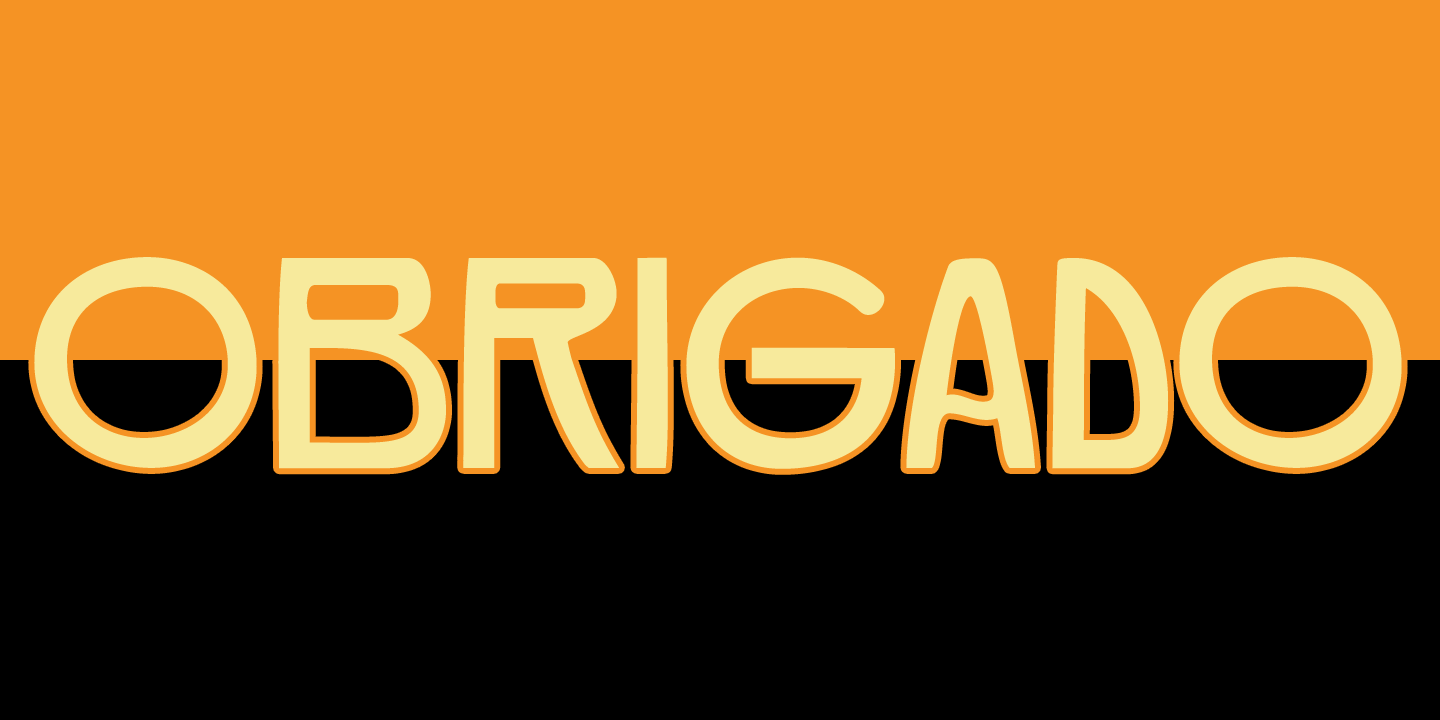
The Obrigado Font excels in various design applications including Brazilian cultural branding, Portuguese language educational materials, Latin American restaurant communications, Brazilian tourism marketing, Portuguese heritage center identities, Brazilian music festival promotions, Portuguese bookstore signage, Brazilian coffee shop materials, Latin cultural celebration documentation, and distinguished Portuguese projects that demand Brazilian warmth and Portuguese sophistication.
What makes the Obrigado Font exciting is its warm embodiment of Brazilian hospitality and Portuguese cultural heritage through letterforms that capture the essence of heartfelt gratitude and the welcoming spirit of Lusophone communities. This typeface demonstrates exceptional warmth through carefully crafted characters that suggest the genuine appreciation expressed in Portuguese thanks, the cultural richness of Brazilian traditions, and the hospitable nature that makes Portuguese-speaking cultures so emotionally welcoming and culturally vibrant. The font's grateful personality makes it perfect for Brazilian businesses and Portuguese cultural organizations seeking to communicate cultural authenticity, heartfelt appreciation, and the kind of warm hospitality that creates memorable Brazilian experiences through typography that literally thanks with cultural sincerity.
The Obrigado Font family typically includes warm weight variations that enhance the Brazilian aesthetic, featuring hospitable styling options and extended character sets supporting Portuguese linguistic requirements and Latin cultural applications. These family options often include Brazilian-inspired alternates, Portuguese symbols, and cultural decorative elements that provide designers with comprehensive tools for creating authentically Brazilian typography that celebrates Portuguese heritage while maintaining contemporary design appeal and cultural sensitivity.
Cultural professionals and Brazilian tourism organizations consistently select Obrigado Font Free Download for projects requiring typography that communicates Brazilian authenticity and Portuguese sophistication. This typeface delivers exceptional performance in cultural marketing, Brazilian branding, and Portuguese communications where establishing warmth and creating hospitable atmosphere is essential for cultural connection. The font's grateful character makes it particularly effective for hospitality and cultural applications. Download Obrigado Font Free Download today to access this culturally warm typeface that transforms Brazilian communications with its grateful elegance and Portuguese sophistication, creating compelling cultural experiences that honor the magnificent hospitality of Brazilian culture while celebrating the heartfelt appreciation that defines authentic Portuguese-speaking communities and Brazilian cultural excellence.